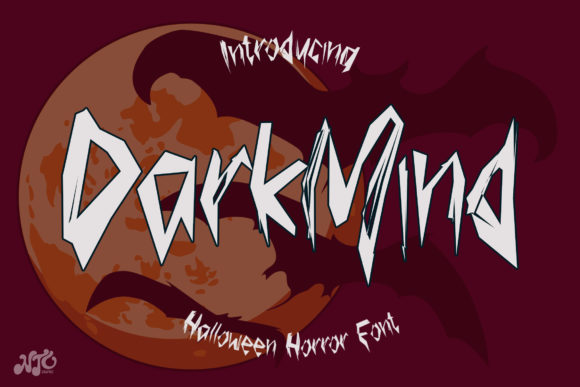
Dive into the depths of digital artistry with Dark Mind Font, a display font that conjures images of swirling shadows and whispering secrets. Its meticulously crafted characters, each a testament to the boundless creativity of its designer, dwikrisdiantoro9, dance before your eyes like ethereal specters.
Dark Mind Font beckons you to unleash your inner artist, inviting you to create spellbinding designs that will leave an indelible mark on the hearts and minds of your audience. Its eerie elegance lends itself seamlessly to Halloween-themed projects, where it will cast an otherworldly spell on invitations, posters, and decorations.
But the versatility of Dark Mind Font knows no bounds. Its enigmatic charm extends far beyond the realm of the macabre, beckoning you to explore its potential in a myriad of creative endeavors. From crafting logos that exude an air of mystery to designing website headers that captivate and intrigue, Dark Mind Font empowers you to weave a tapestry of visual enchantment that will transport your creations to new heights of excellence.
Let your imagination run wild as you harness the power of Dark Mind Font. Its captivating design will evoke emotions, inspire awe, and leave an unforgettable impression on all who encounter it. Whether you seek to conjure the ethereal or embrace the enigmatic, Dark Mind Font is your loyal companion, guiding you through the uncharted territories of digital artistry.